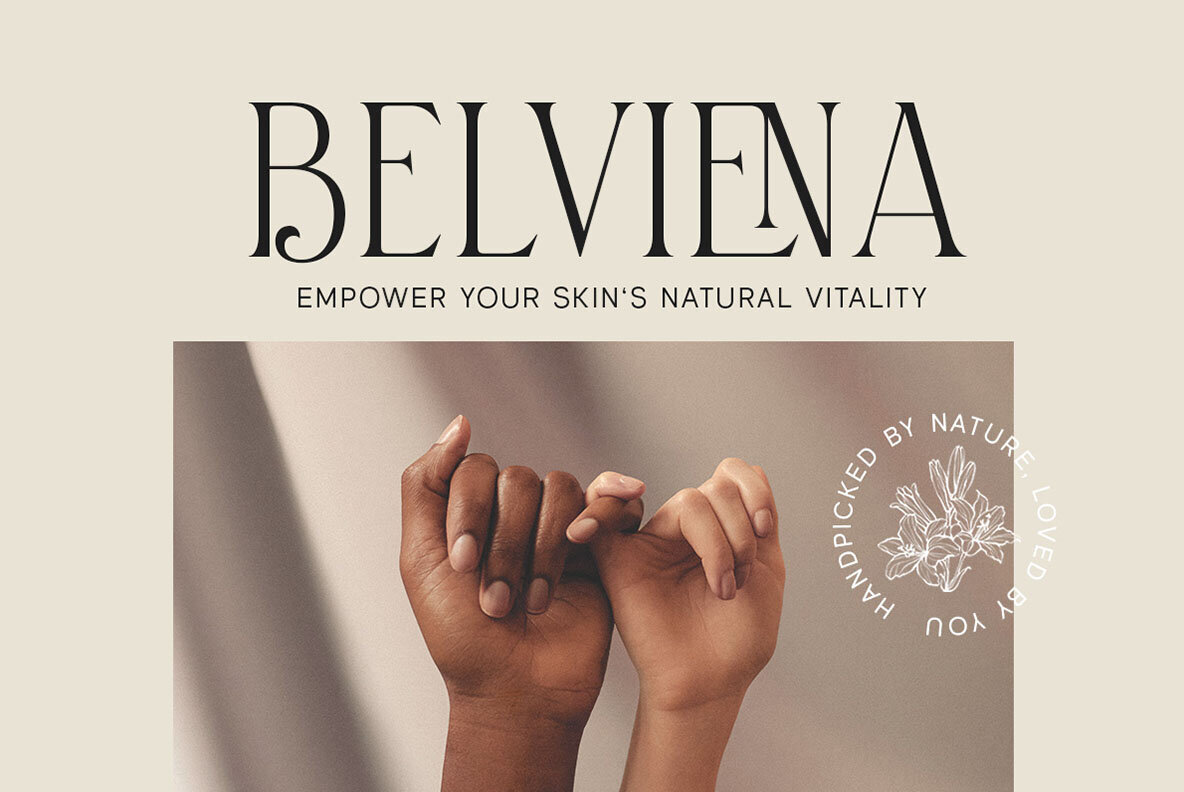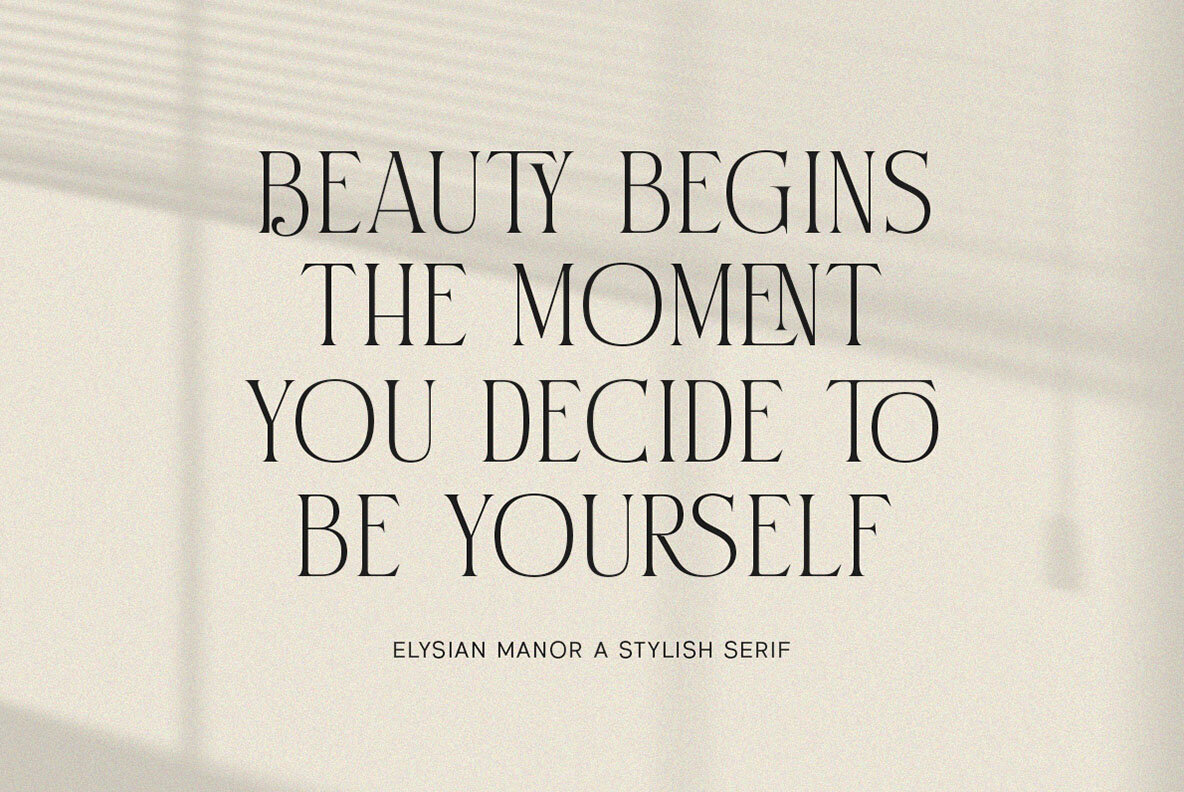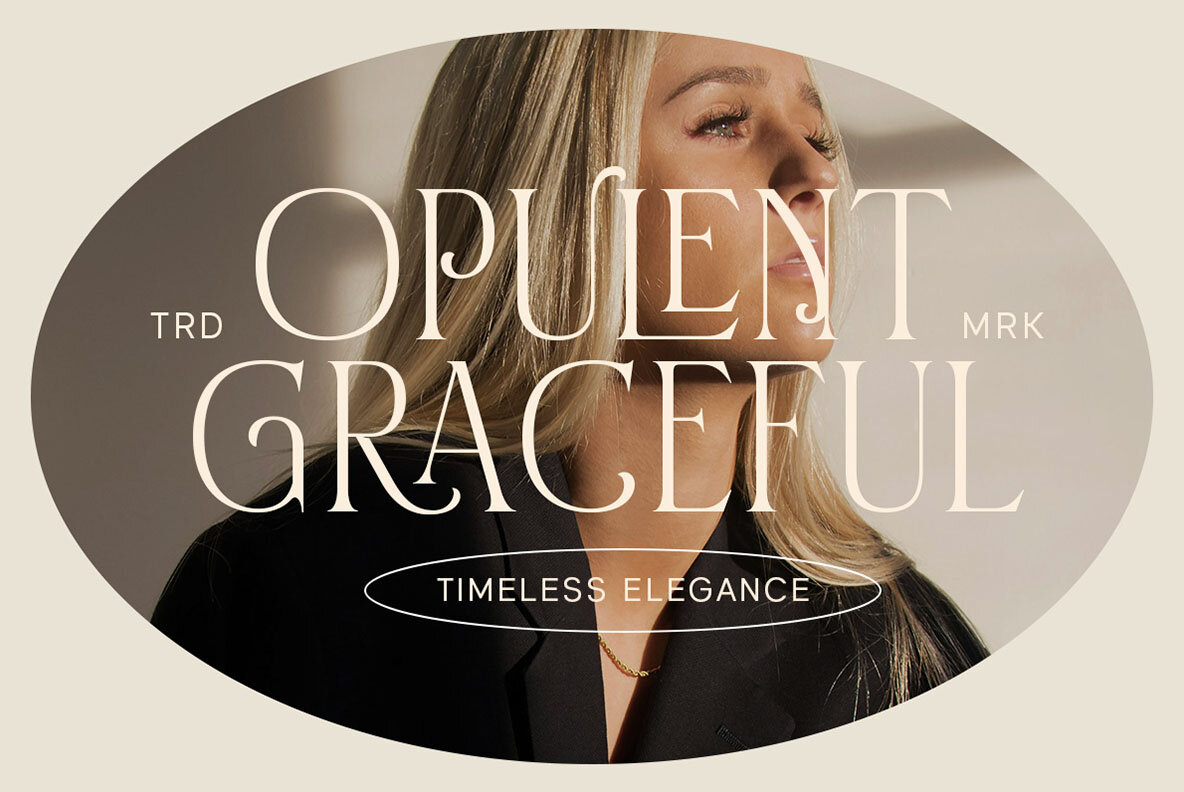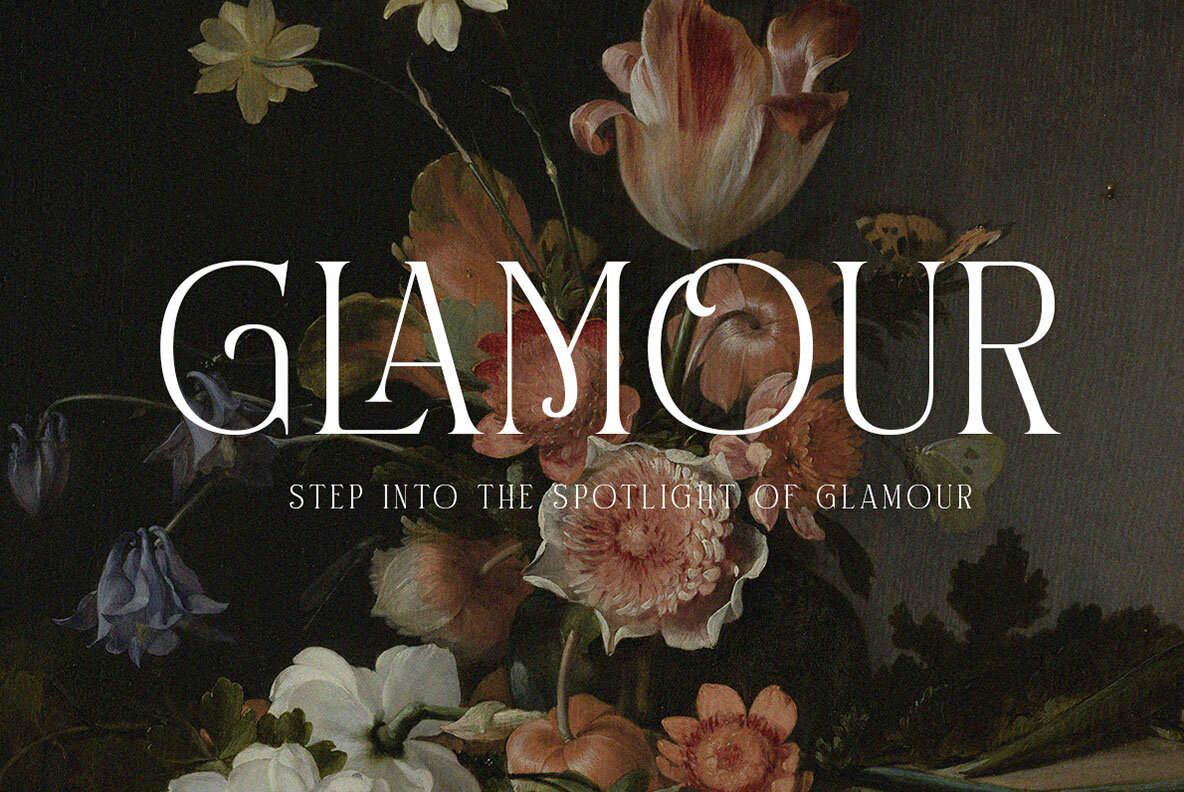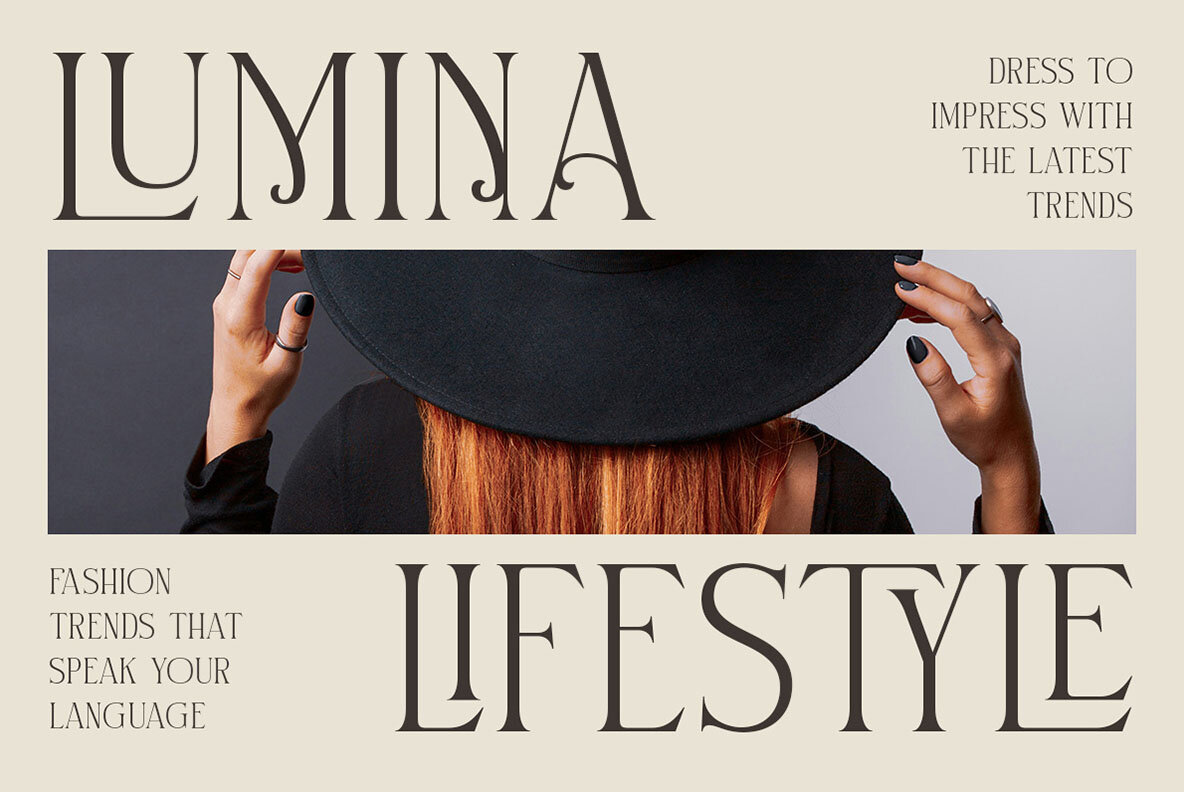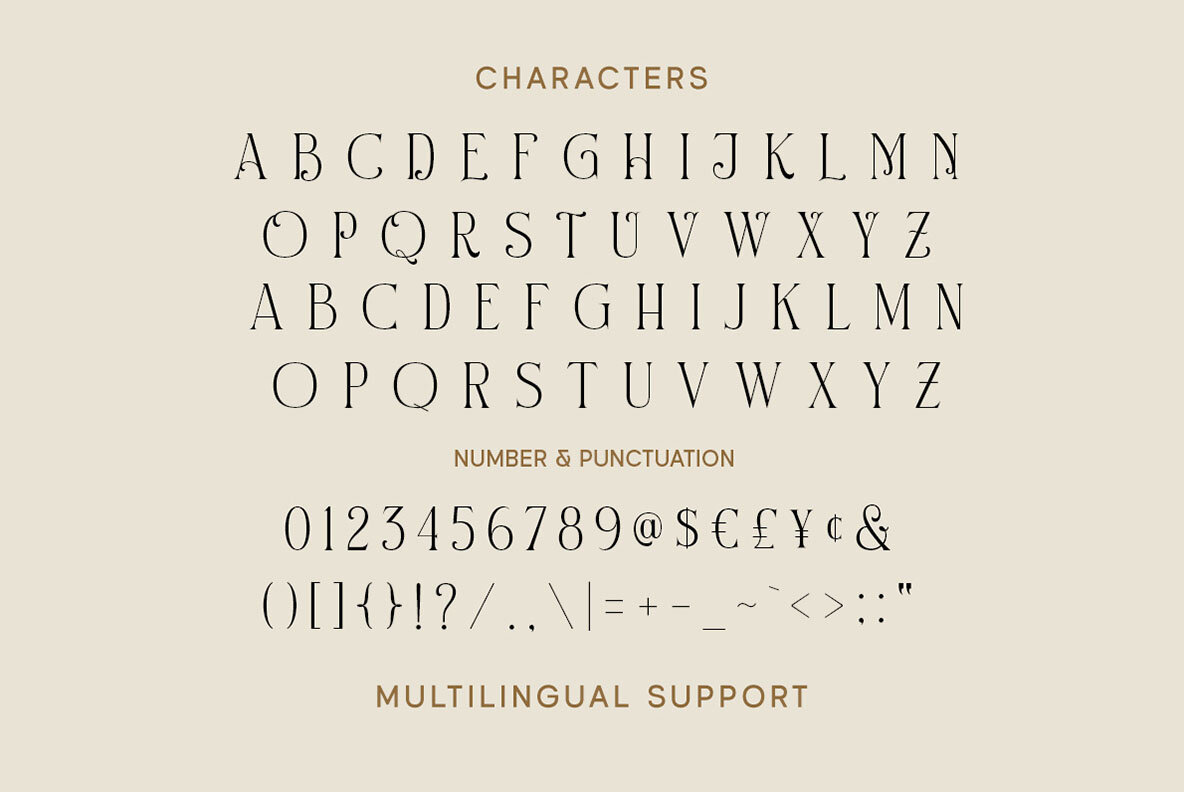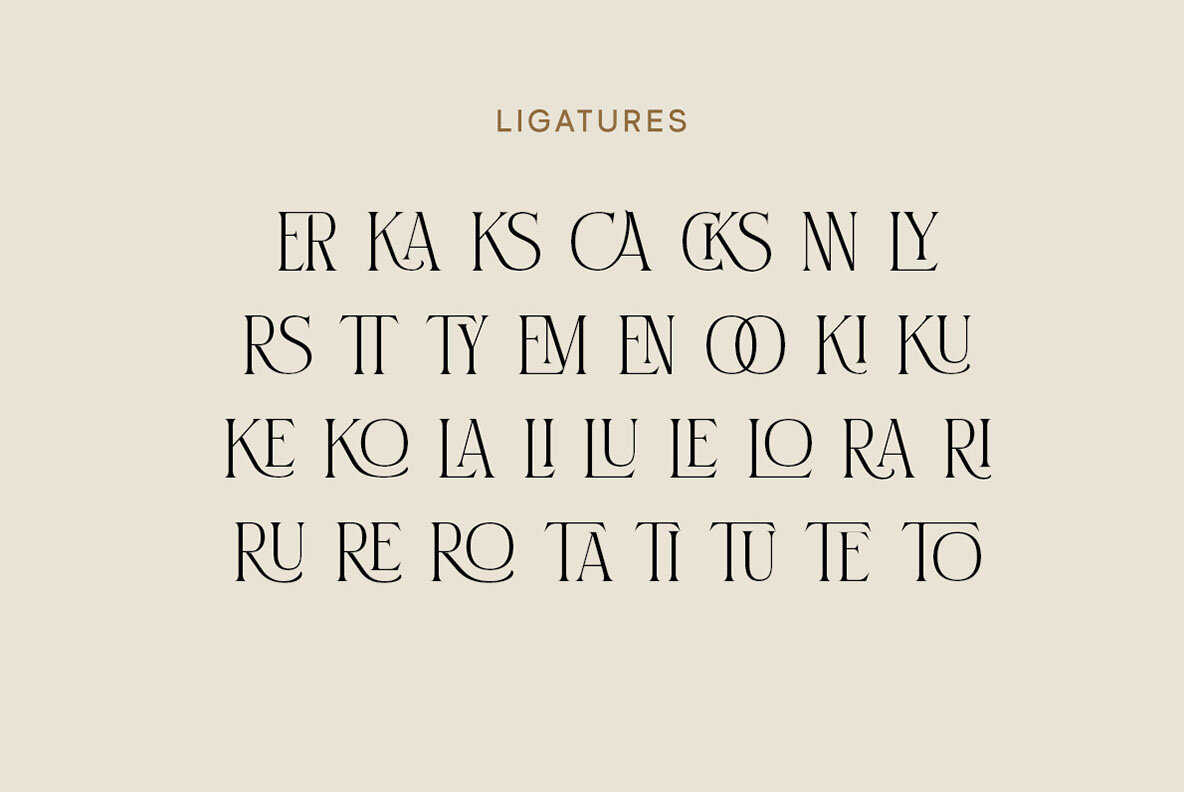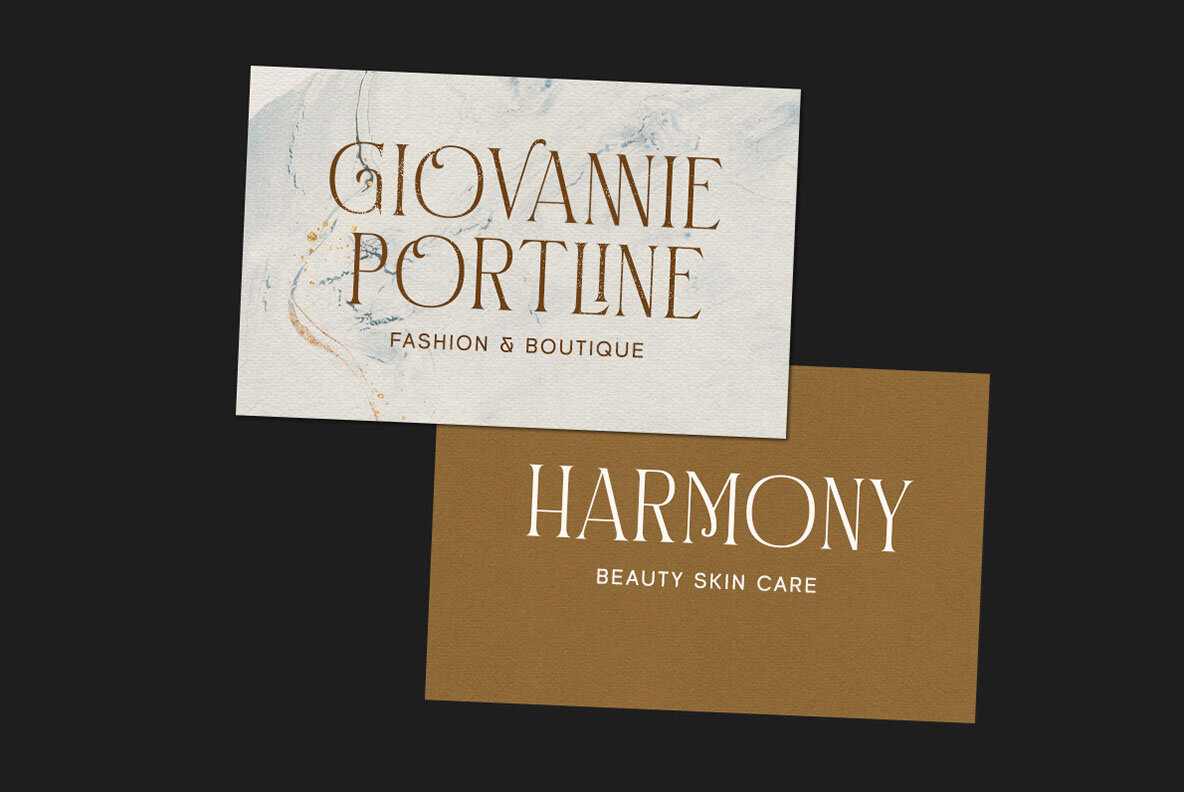
Elysian Manor Font
Elysian Manor Regular
Elysian Manor by Letterhend Studio is a stylish ligature serif designed with precision to ensure a premium quality and luxurious feel. This unique typeface distinguishes itself from regular serif fonts, making it ideal for logos, headlines, and various formal applications such as invitations, labels, magazines, books, greeting cards, packaging, fashion, stationery, and advertising. For optimal use, we recommend utilizing a program that supports OpenType features and Glyph panels, such as many Adobe applications and Corel Draw, to access all Glyph variations.Elysian Manor: A Luxurious Ligature Serif